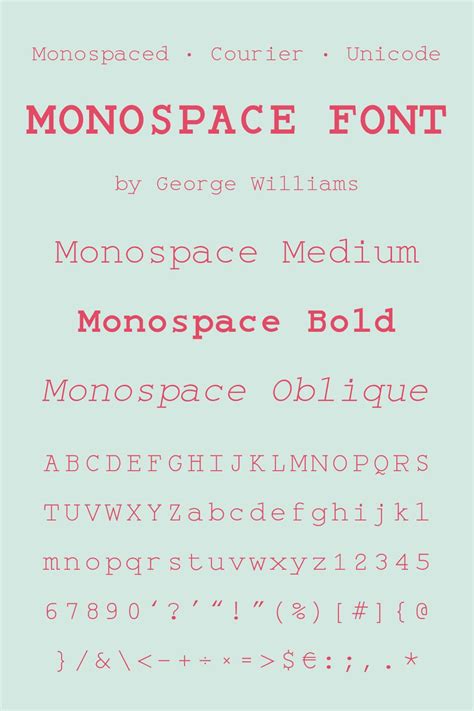
Monospace Font Word. Web top 10 most popular monospaced fonts. Monospaced typefaces usually bring to mind typewriters and computer programming, however, they can be a perfect choice for designers looking for a sparse, minimal.
Monospace fonts
The only monospaced truetype fonts shipped by microsoft are courier new, which shipped with windows 3.1, and lucida sans typewriter, which was included in the truetype font pack. Web top 10 most popular monospaced fonts. Web this list of monospaced typefaces details standard monospaced fonts used in classical typesetting and printing. Monospaced typefaces usually bring to mind typewriters and computer programming, however, they can be a perfect choice for designers looking for a sparse, minimal.
Web this list of monospaced typefaces details standard monospaced fonts used in classical typesetting and printing. Monospaced typefaces usually bring to mind typewriters and computer programming, however, they can be a perfect choice for designers looking for a sparse, minimal. Web this list of monospaced typefaces details standard monospaced fonts used in classical typesetting and printing. Web top 10 most popular monospaced fonts. The only monospaced truetype fonts shipped by microsoft are courier new, which shipped with windows 3.1, and lucida sans typewriter, which was included in the truetype font pack.